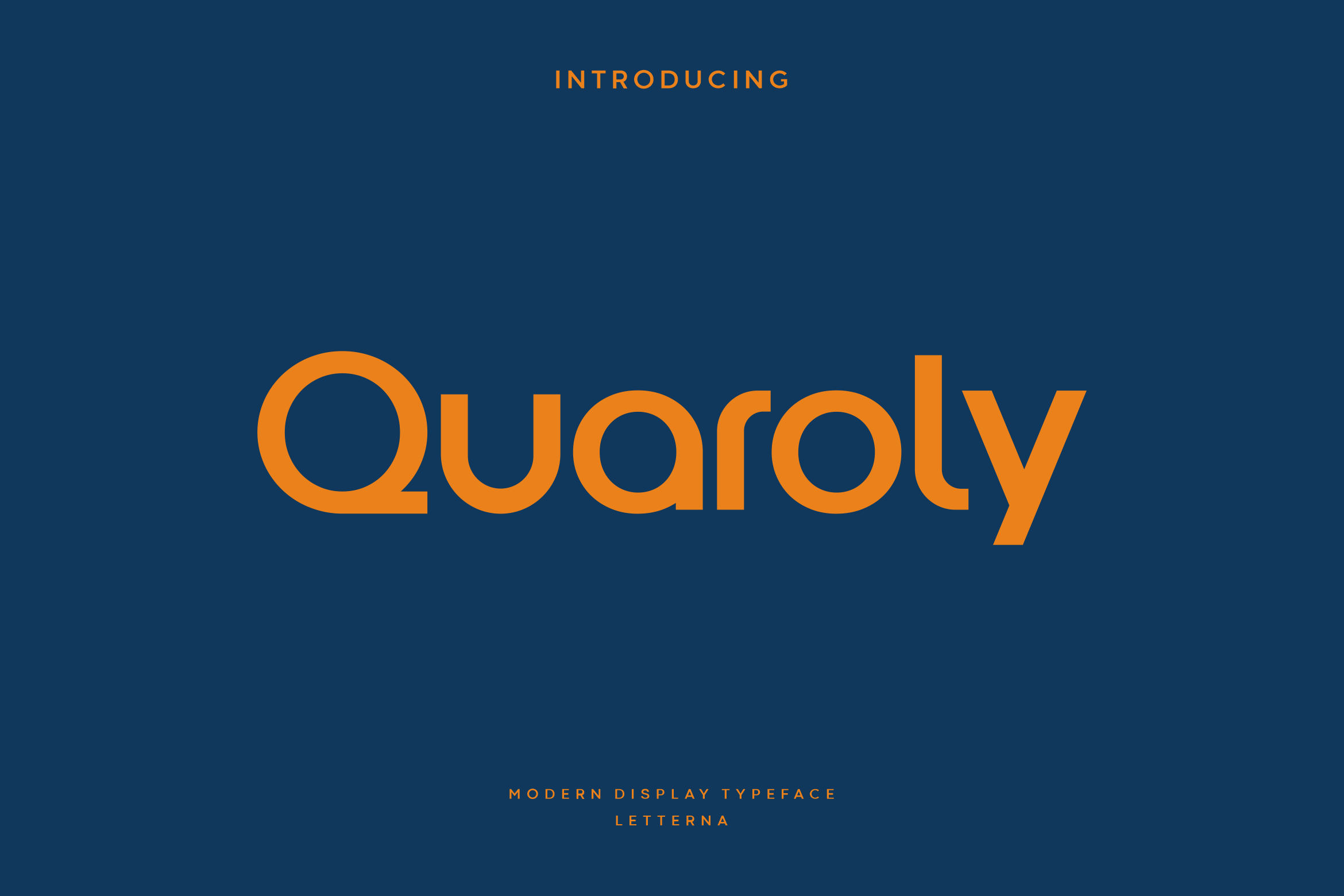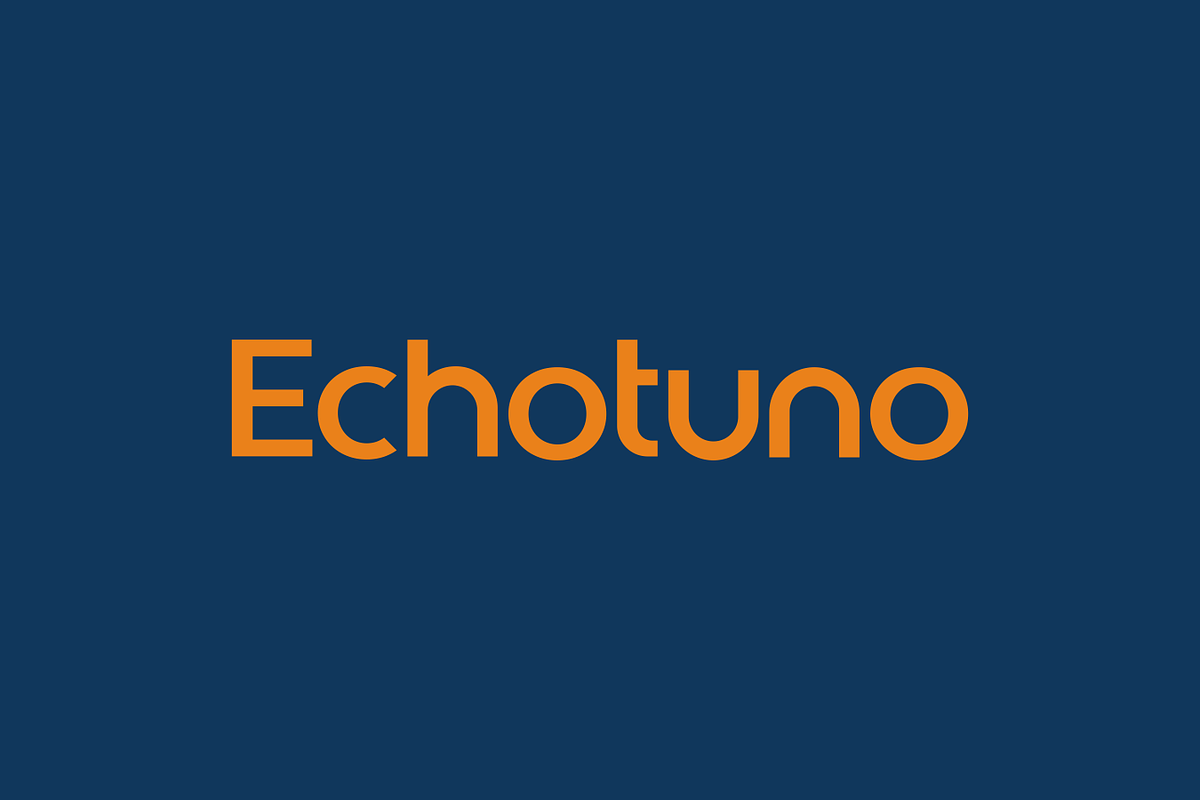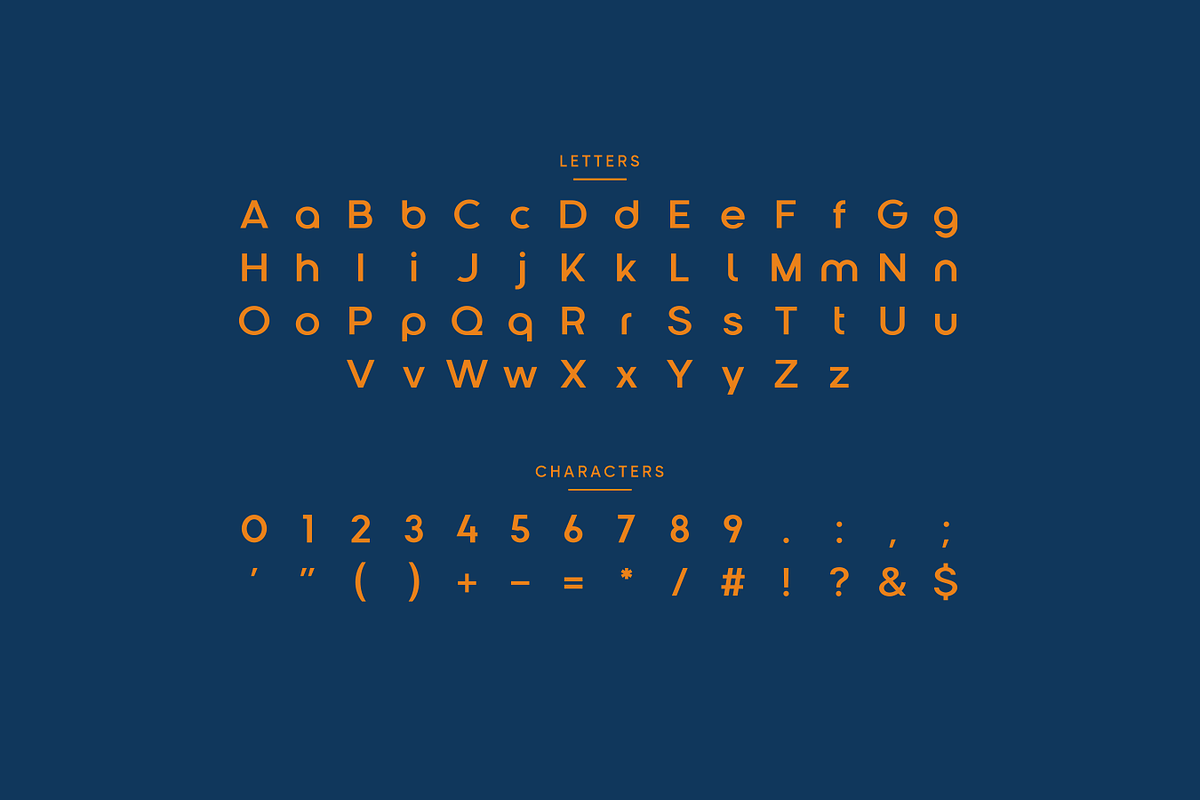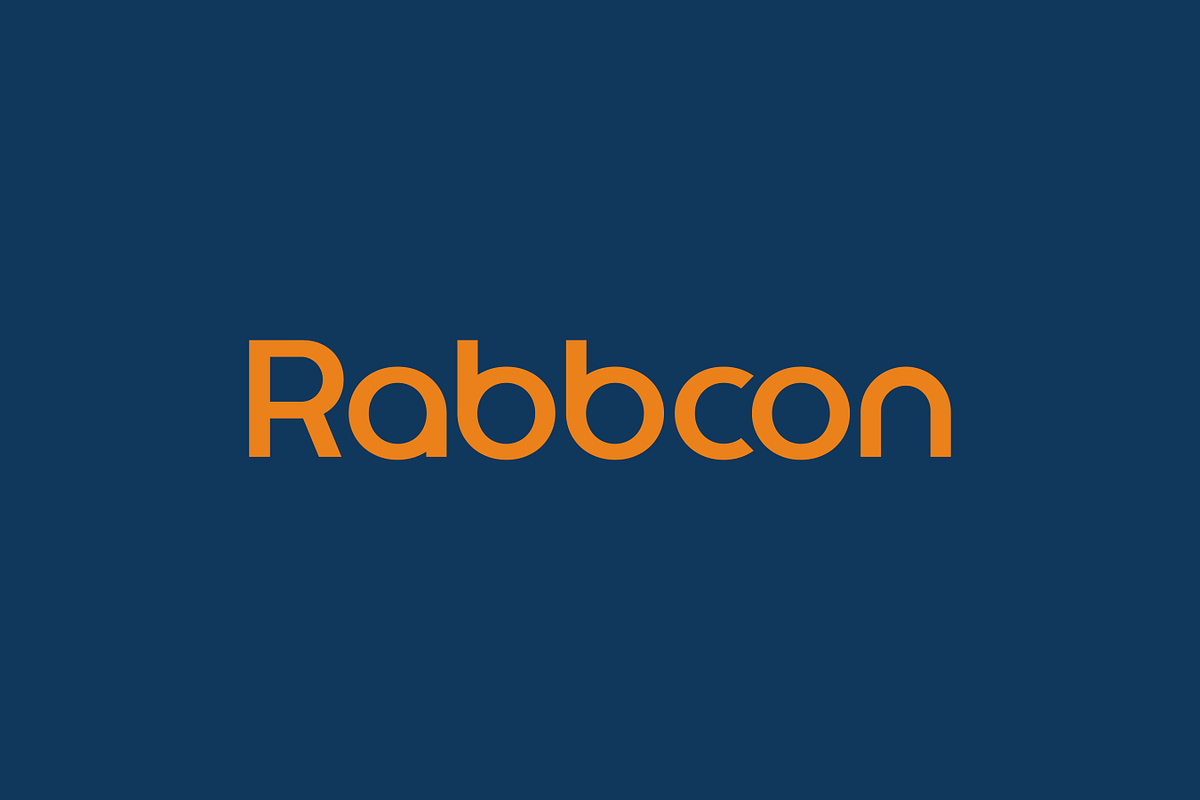
Quaroly - Modern Display Typeface
Quaroly is a meticulously crafted typeface designed specifically for logos, branding, headers, and titling. With a sophisticated modern look that is tailored for impressive logos and branding materials, this font ensures your designs leave a lasting impression. Quaroly is a contemporary typeface that presents a sci-fi, modern, and minimalist style, this typeface is suitable for various types of your design.